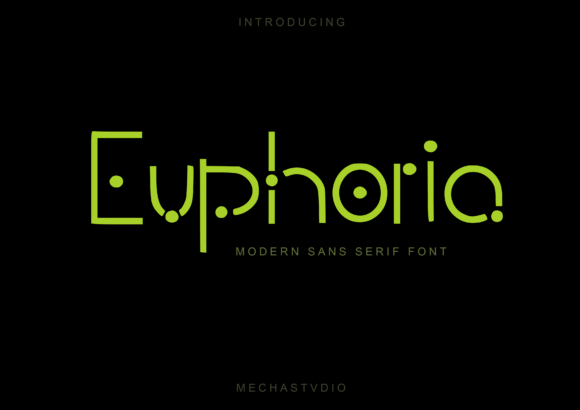
Euphoria Font: Elevate Your Designs with a Modern, Clean, and Unique Sans Serif Font
In the world of typography, fonts play a crucial role in conveying the message and aesthetic of a design. With numerous fonts available, finding the perfect one that stands out from the crowd can be a daunting task. However, if you’re looking for a font that can transform your projects into a true standout, look no further than the Euphoria Font. This modern, clean, and unique sans serif font is designed to elevate your designs and leave a lasting impression.
What is Euphoria Font?
Euphoria Font is a sans serif font that boasts a modern and clean design. Its unique style is characterized by its sleek lines, precise curves, and balanced proportions. This font is perfect for designers and crafters who want to add a touch of sophistication and elegance to their projects. Whether you’re working on a branding project, website design, or crafting a marketing material, Euphoria Font is an excellent choice.
Key Features of Euphoria Font
So, what makes Euphoria Font stand out from other fonts? Here are some of its key features:
- Modern and Clean Design: Euphoria Font features a modern and clean design that is perfect for contemporary projects.
- Unique Sans Serif Style: Its unique sans serif style sets it apart from other fonts, making it a great choice for designers who want to create a distinctive look.
- Balanced Proportions: The font’s balanced proportions ensure that it is legible and easy to read, making it perfect for body text and headings.
- Precise Curves: The precise curves and sleek lines of Euphoria Font give it a sophisticated and elegant look.
Benefits of Using Euphoria Font
Using Euphoria Font in your designs can have numerous benefits. Here are some of the advantages of using this font:
- Enhance Readability: Euphoria Font’s clean and balanced design makes it easy to read, even at small font sizes.
- Increase Versatility: This font is versatile and can be used in a variety of projects, from branding and advertising to website design and crafting.
- Improve Aesthetics: Euphoria Font’s modern and unique design can elevate the aesthetic of your projects, making them more visually appealing.
- Stand Out from the Crowd: With its distinctive style, Euphoria Font can help your designs stand out from the crowd and leave a lasting impression.
How to Use Euphoria Font in Your Designs
Using Euphoria Font in your designs is easy. Here are some tips to get you started:
- Pair it with Other Fonts: Euphoria Font can be paired with other fonts to create a unique and visually appealing combination.
- Experiment with Font Sizes: Try using Euphoria Font in different font sizes to create visual hierarchy and emphasis.
- Use it for Headings and Body Text: This font is suitable for both headings and body text, making it a great choice for a wide range of projects.
In conclusion, Euphoria Font is a modern, clean, and unique sans serif font that can elevate your designs and transform them into a true standout. Its key features, such as its balanced proportions, precise curves, and sleek lines, make it perfect for a wide range of projects. With its numerous benefits, including enhanced readability, increased versatility, and improved aesthetics, Euphoria Font is an excellent choice for designers and crafters. So, why wait? Try Euphoria Font today and experience the difference it can make in your designs!